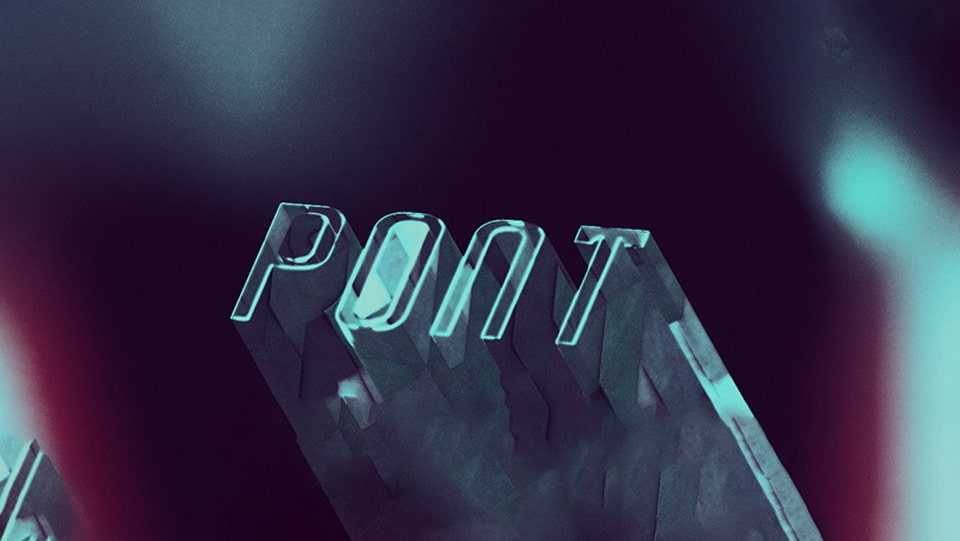
Download Pont font, a geometric sans serif typeface inspired by the Art Deco movement. Pont font has uppercase, lowercase, their glyphs, numerals, and many symbols / punctuation.